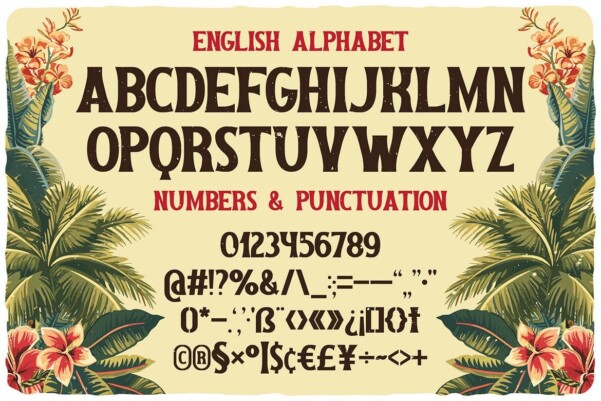
Tropical Tides Font
Tropical Tides Font, unique serif, vintage, retro, raw and elegant. Comes with multilingual support and ligatures, ideal for your new Logo or branding project